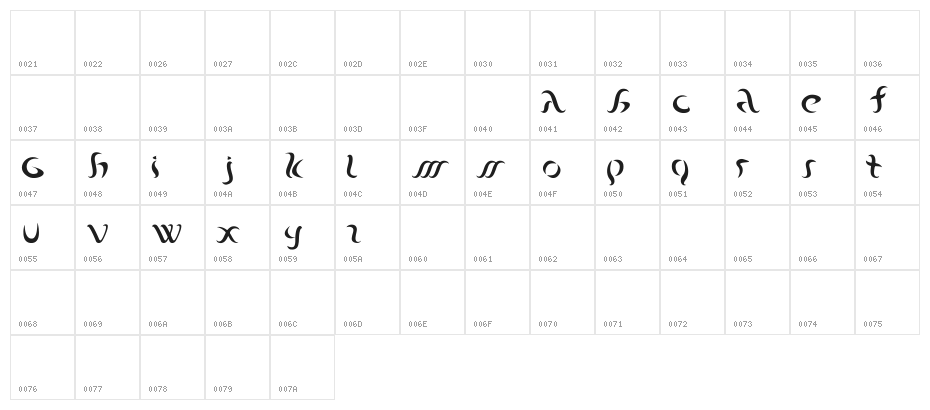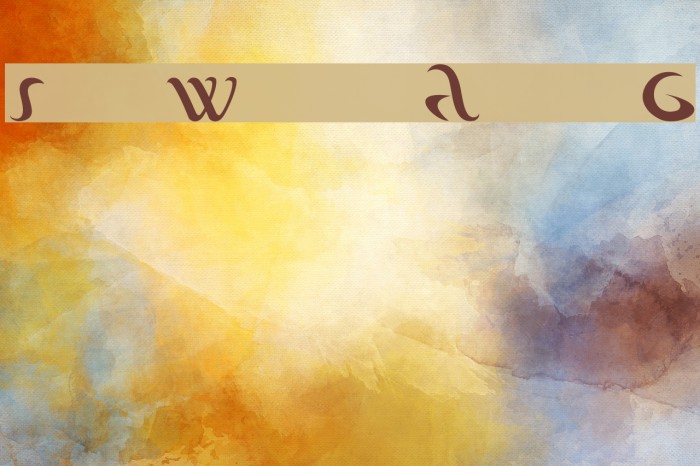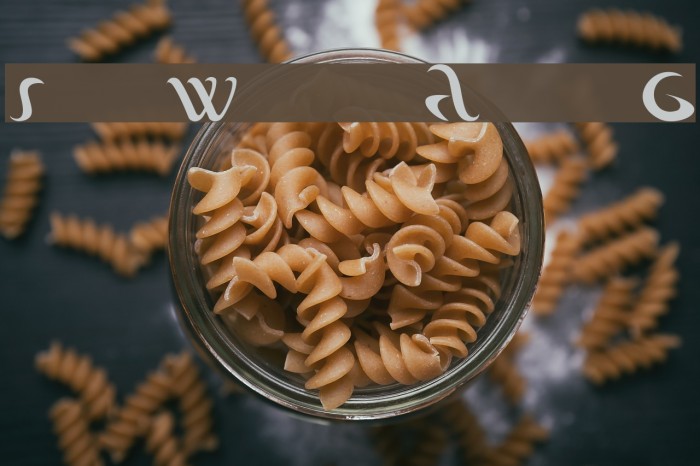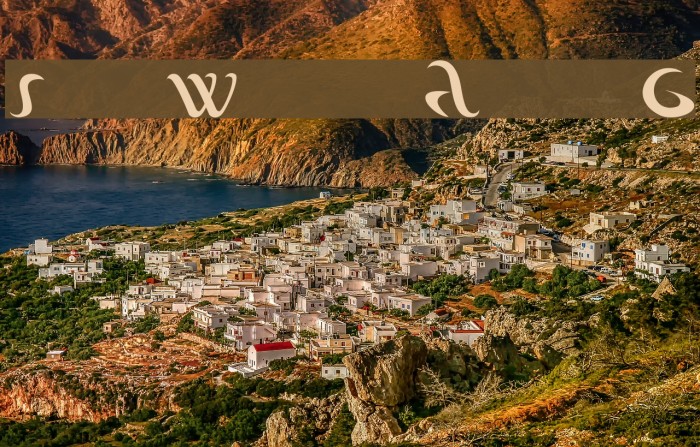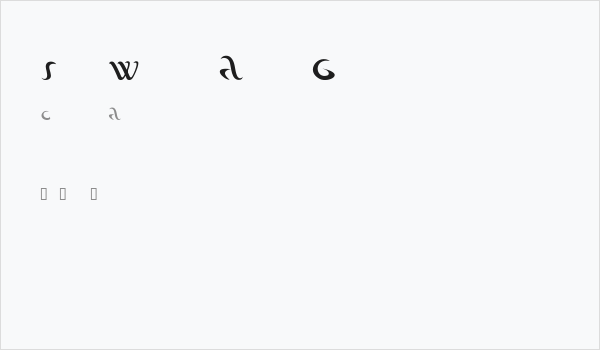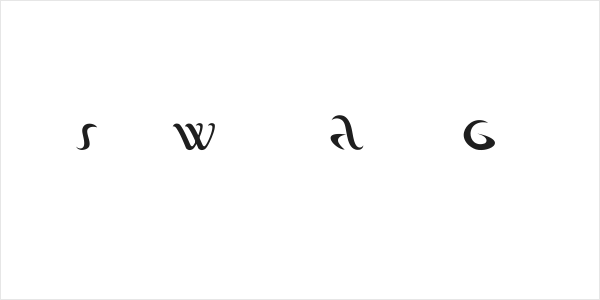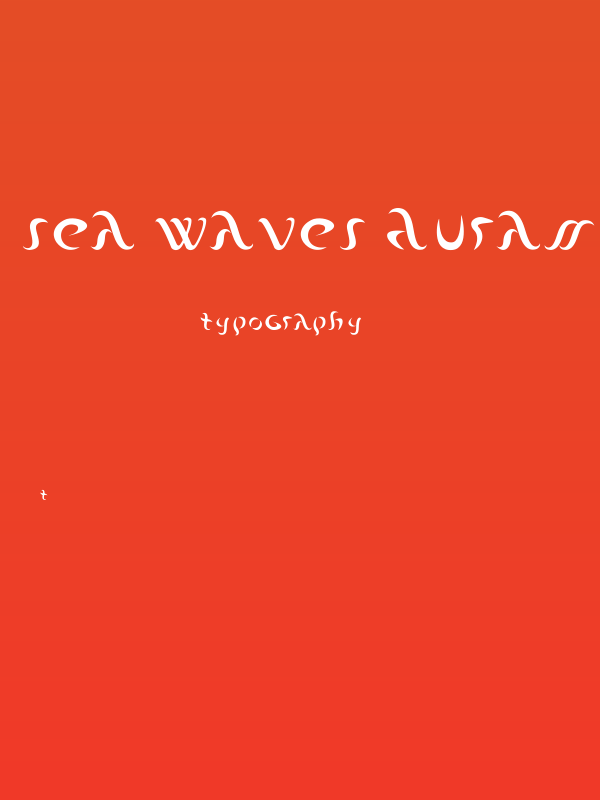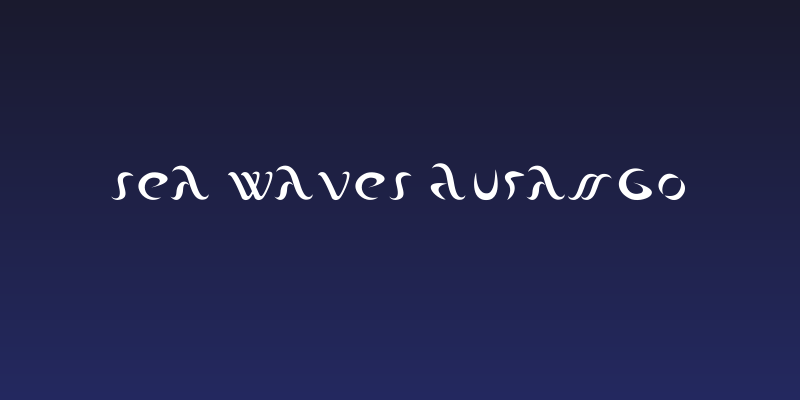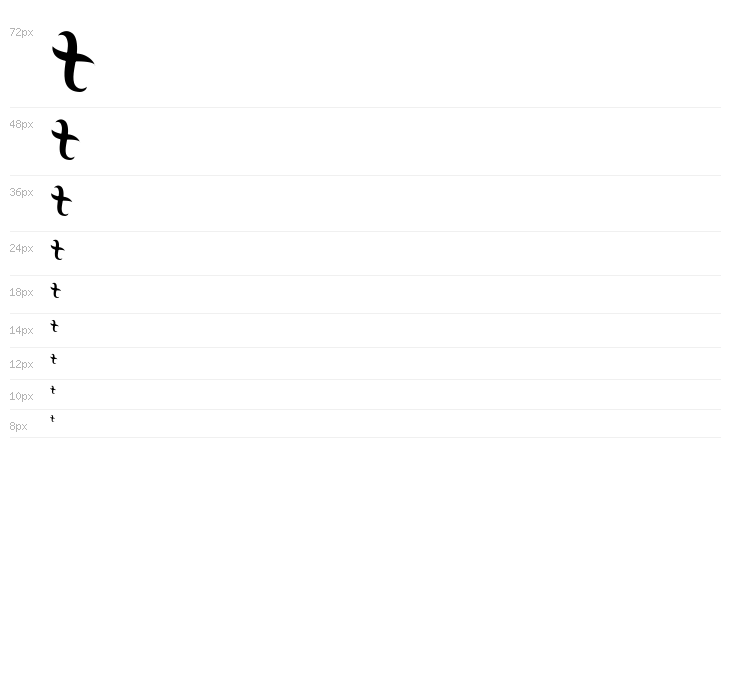
Sea Waves DuranGo Font
Sea Waves DuranGo Description
This font features a unique and artistic design, characterized by its flowing, wave-like curves that give each letter a sense of movement and fluidity. The strokes are bold and dynamic, with varying thickness that adds a sense of depth and dimension. The overall appearance is both modern and decorative, making it stand out with its distinctive style. The characters are well-spaced, allowing for readability while maintaining an artistic flair. This font is particularly suitable for creative projects that require a touch of elegance and uniqueness.
| Proposed Projects | Ideal for branding, logos, posters, and artistic projects that require a unique and elegant touch. |